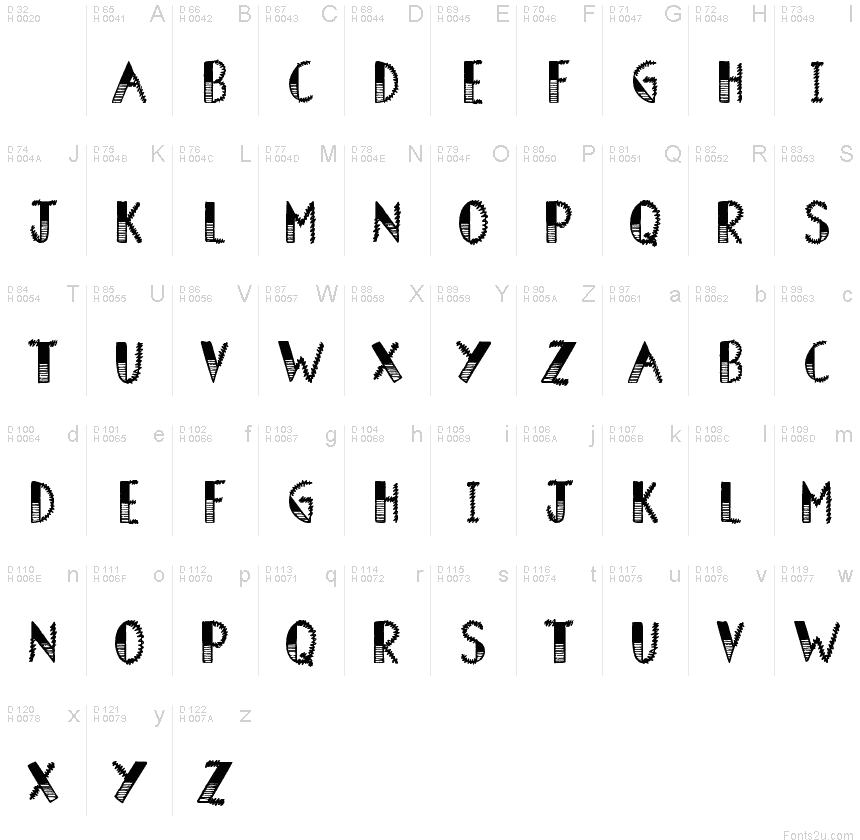
Barn Owl by Tattoo Woo is a free decorative display font with tall, roughly cut capitals. Solid shapes meet striped patches and thorny edges. The alternating smooth masses and frantic scratches give each letter a handmade collage quality.
An outdoor clothing label or rustic music venue could use it for branding, posters, merchandise, and event graphics with a raw folk-art edge. Its repeated hatching and feather-like tufts can echo woodcut illustrations, bird imagery, or tattoo flash, turning the lettering into part of the artwork.